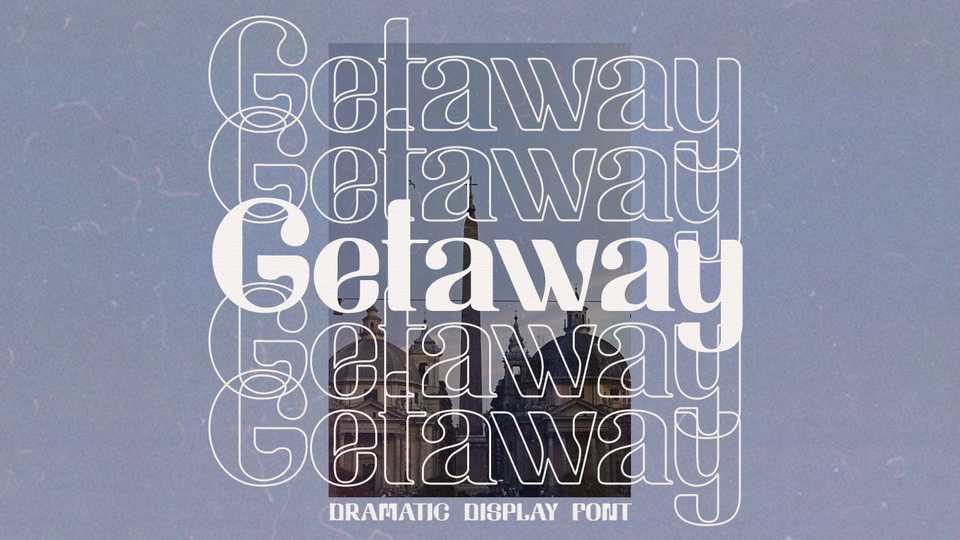
Download Getaway font, a bold display typeface. Getaway font has a harmonic balance between straight and curved shapes, becoming a modern interpretation of vintage typestyles.